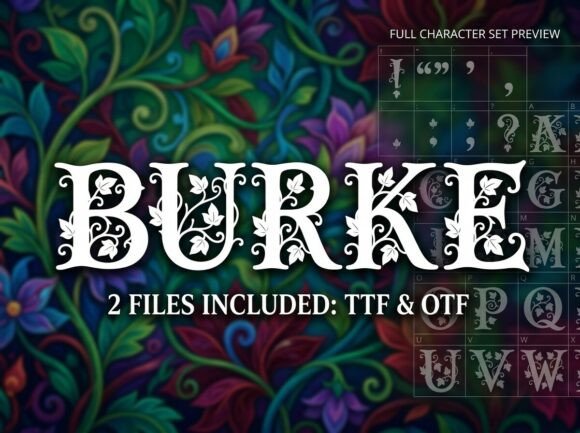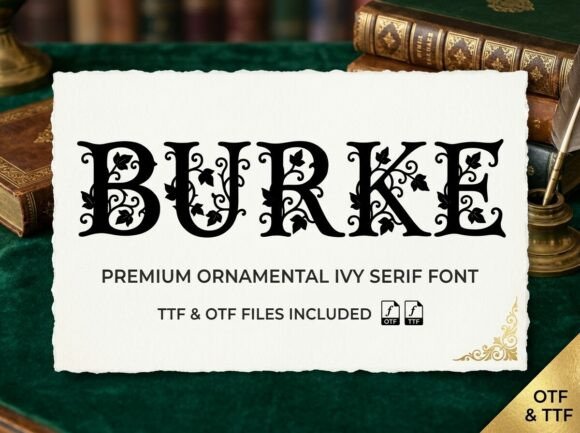
Discover the Timeless Elegance of Burke Font: A Majestic Display Serif
Step into a world of timeless academia with Burke, a majestic display serif that captures a “scholarly-and-botanical” soul. This font features bold, traditional serif letterforms masterfully entwined with rhythmic, hand-drawn ivy vines and delicate leaf flourishes that creep through the counters of each character. With its heavy ornamental weight and prestigious personality, Burke is the premier choice for independent university branding, heritage estate logos, classic book cover designs, and high-impact “dark-academia-and-distinguished” social media headers.
The Inspiration Behind Burke Font
Burke font is inspired by the classic serif fonts used in traditional academic and literary publications. The font’s creator aimed to evoke a sense of nostalgia and sophistication, while also incorporating elements of nature to give it a unique twist. The result is a font that exudes elegance, refinement, and a deep connection to the world of academia and botany.
Key Features of Burke Font
- Traditional Serif Letterforms: Burke font features bold, traditional serif letterforms that evoke a sense of classic academia.
- Hand-Drawn Ivy Vines: The font’s letterforms are masterfully entwined with rhythmic, hand-drawn ivy vines that add a touch of natural elegance.
- Delicate Leaf Flourishes: Delicate leaf flourishes creep through the counters of each character, adding a level of sophistication and refinement.
- Heavy Ornamental Weight: Burke font has a heavy ornamental weight that gives it a prestigious and authoritative personality.
Use Cases for Burke Font
Burke font is perfect for a variety of design projects that require a touch of classic academia and sophistication. Some of the most popular use cases include:
- Independent University Branding: Burke font is an excellent choice for independent universities looking to establish a strong brand identity.
- Heritage Estate Logos: The font’s classic, elegant design makes it perfect for heritage estate logos that require a sense of tradition and sophistication.
- Classic Book Cover Designs: Burke font is ideal for classic book cover designs that require a touch of nostalgia and refinement.
- Dark-Academia-and-Distinguished Social Media Headers: The font’s heavy ornamental weight and prestigious personality make it perfect for high-impact social media headers.
Tips for Using Burke Font Effectively
To get the most out of Burke font, here are a few tips to keep in mind:
- Use it Sparingly: Due to its heavy ornamental weight, Burke font is best used sparingly to avoid overwhelming the reader.
- Pair it with a Simple Font: Pair Burke font with a simple, clean font to create visual contrast and make your design more readable.
- Experiment with Colors: Burke font looks great in a variety of colors, so don’t be afraid to experiment and find the perfect hue for your design.
Burke font is a majestic display serif that captures the essence of timeless academia and botany. With its bold, traditional serif letterforms, hand-drawn ivy vines, and delicate leaf flourishes, this font is perfect for designers and crafters looking to add a touch of elegance and sophistication to their projects. Whether you’re working on a university branding project, a heritage estate logo, or a classic book cover design, Burke font is sure to impress.